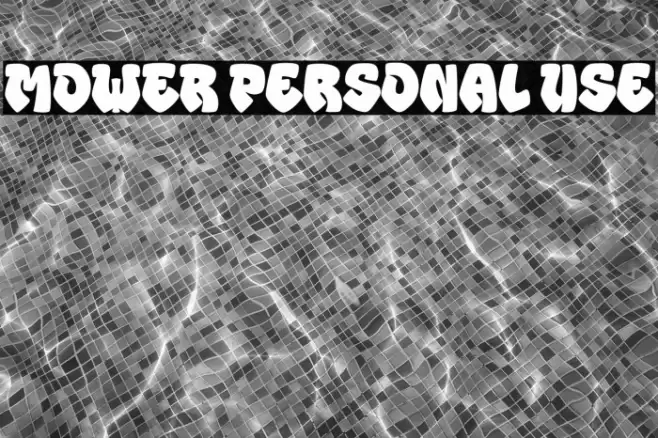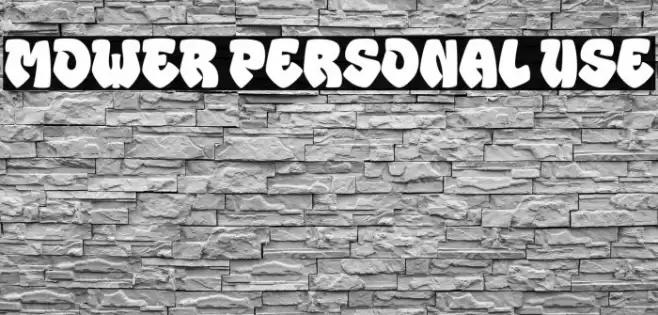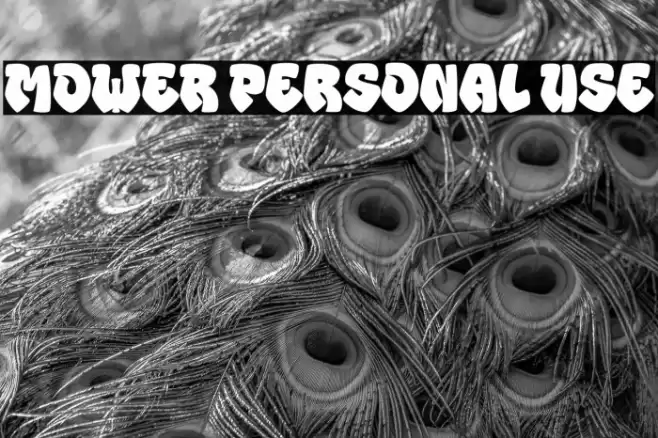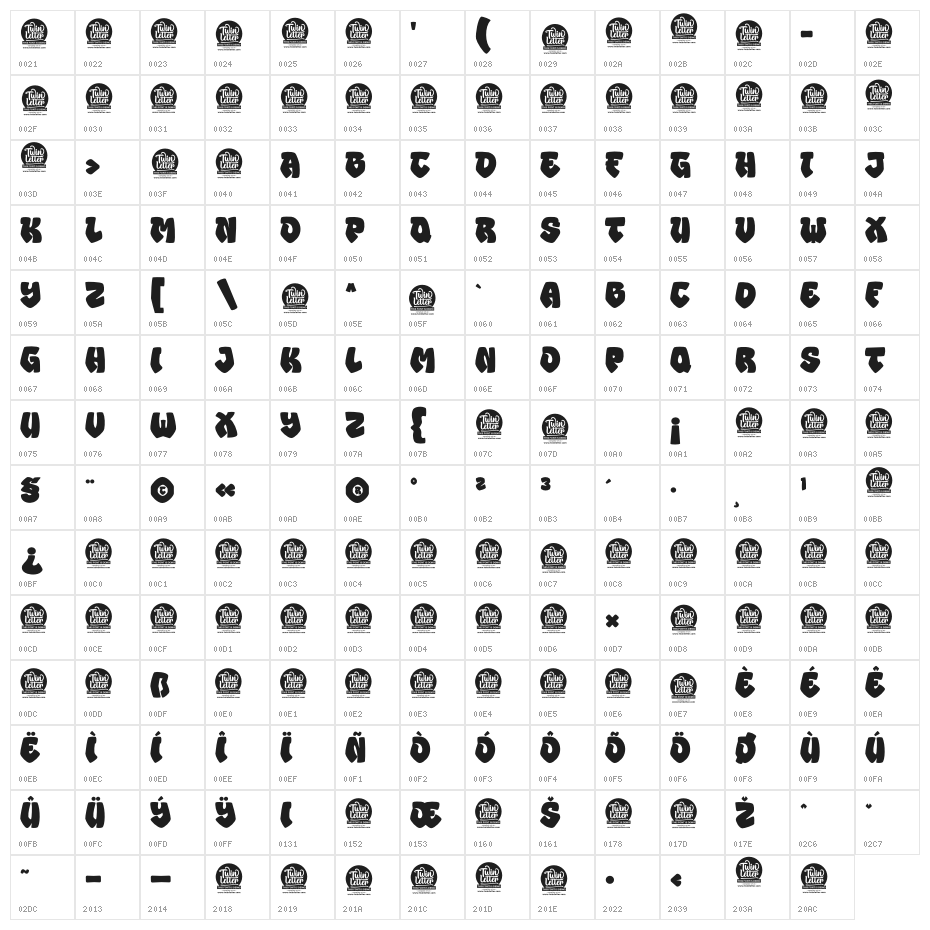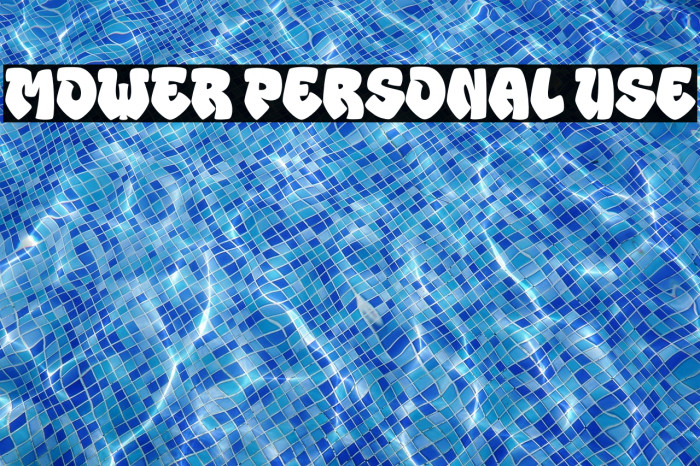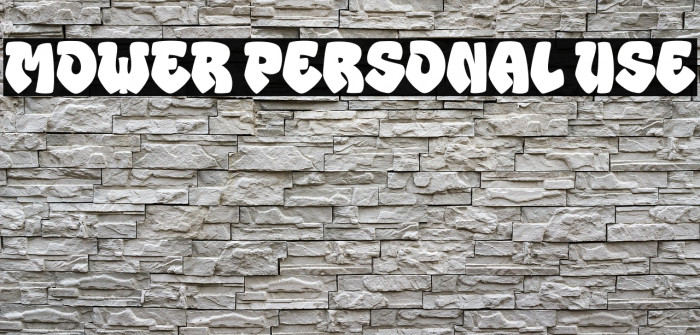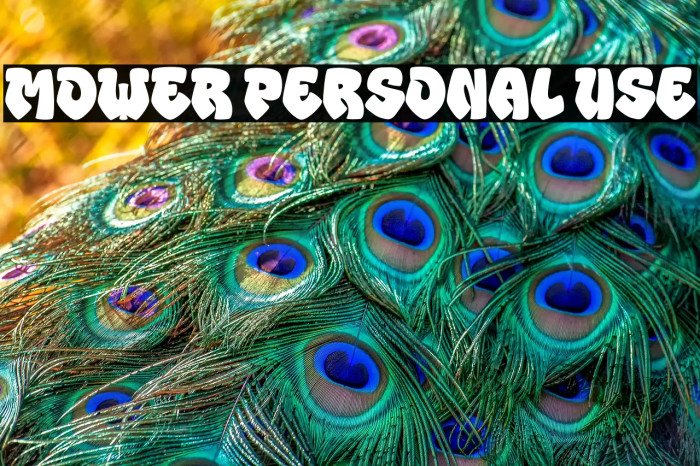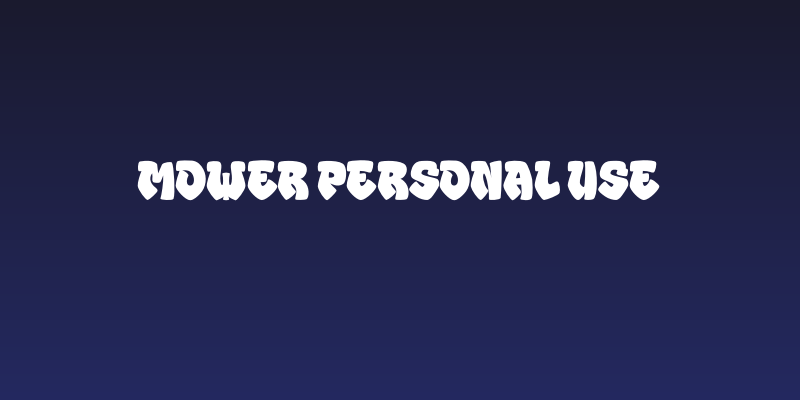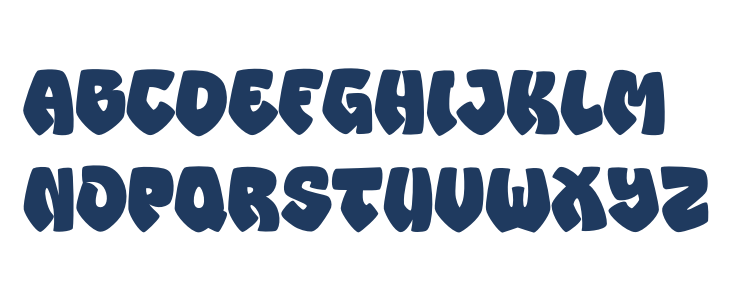
MOWER Personal Use Font
MOWER Personal Use Description
This font features a bold and playful style with thick, rounded strokes that give it a strong and impactful presence. The characters are designed with a unique, almost cartoonish flair, making them stand out with their exaggerated curves and angles. The uppercase letters are particularly striking, with a consistent weight and width that create a cohesive look across the alphabet. The font's design is both modern and retro, reminiscent of vintage signage or comic book lettering. Its boldness and distinctiveness make it ideal for projects that require a fun and eye-catching typeface.
A bold, playful font with thick, rounded strokes and a cartoonish flair from Uncategorized fonts.
- Proposed Projects: Ideal for posters, logos, comic book titles, and playful branding projects.
- Overall Style: Playful, Retro